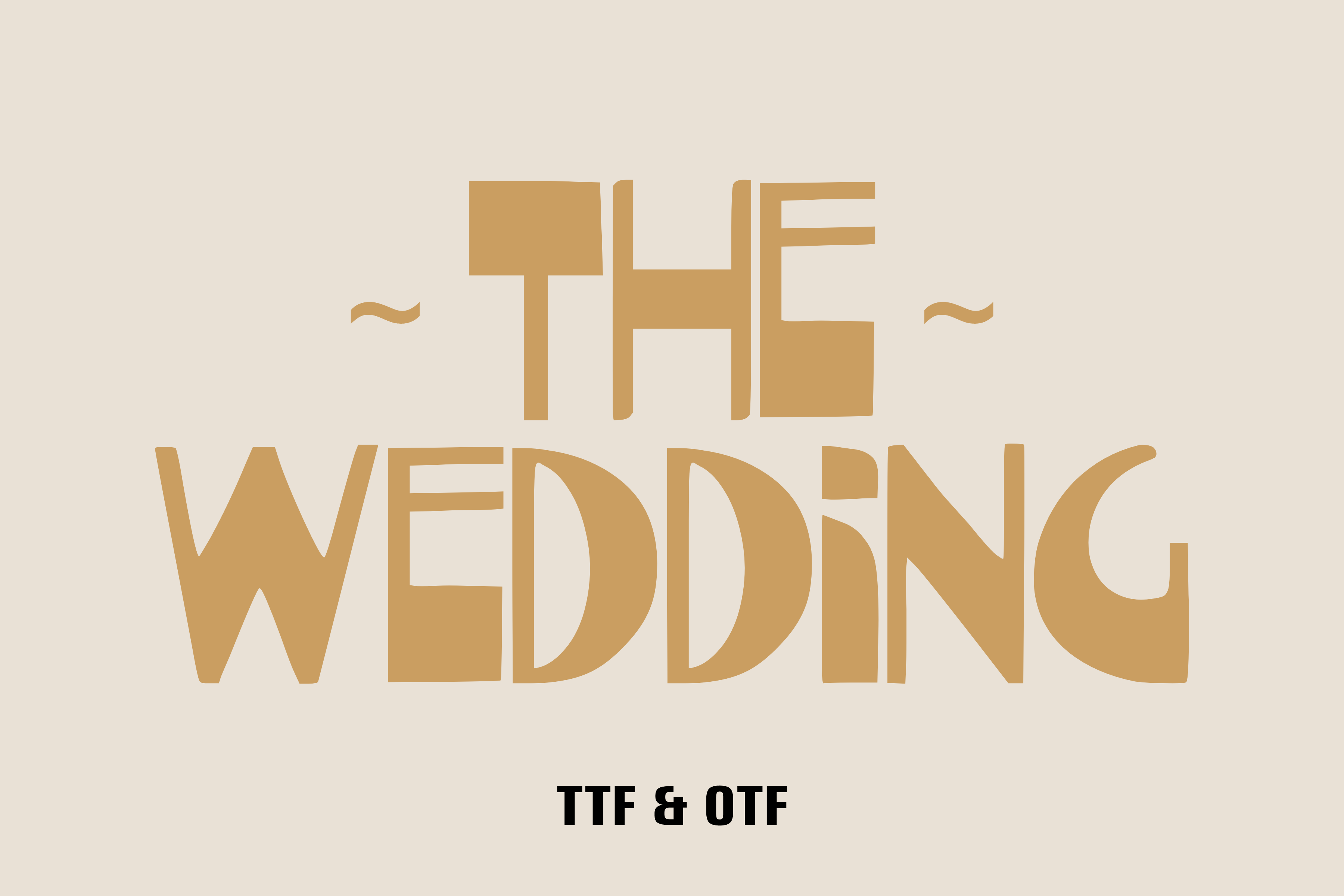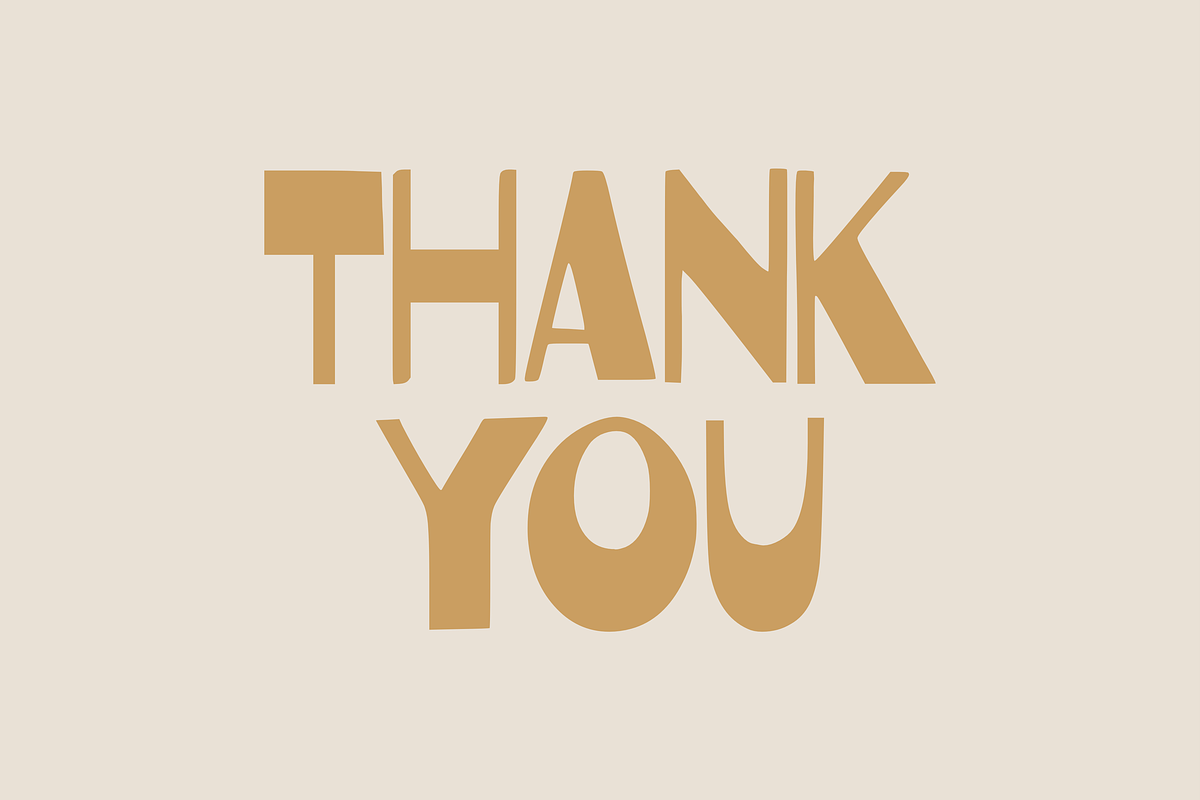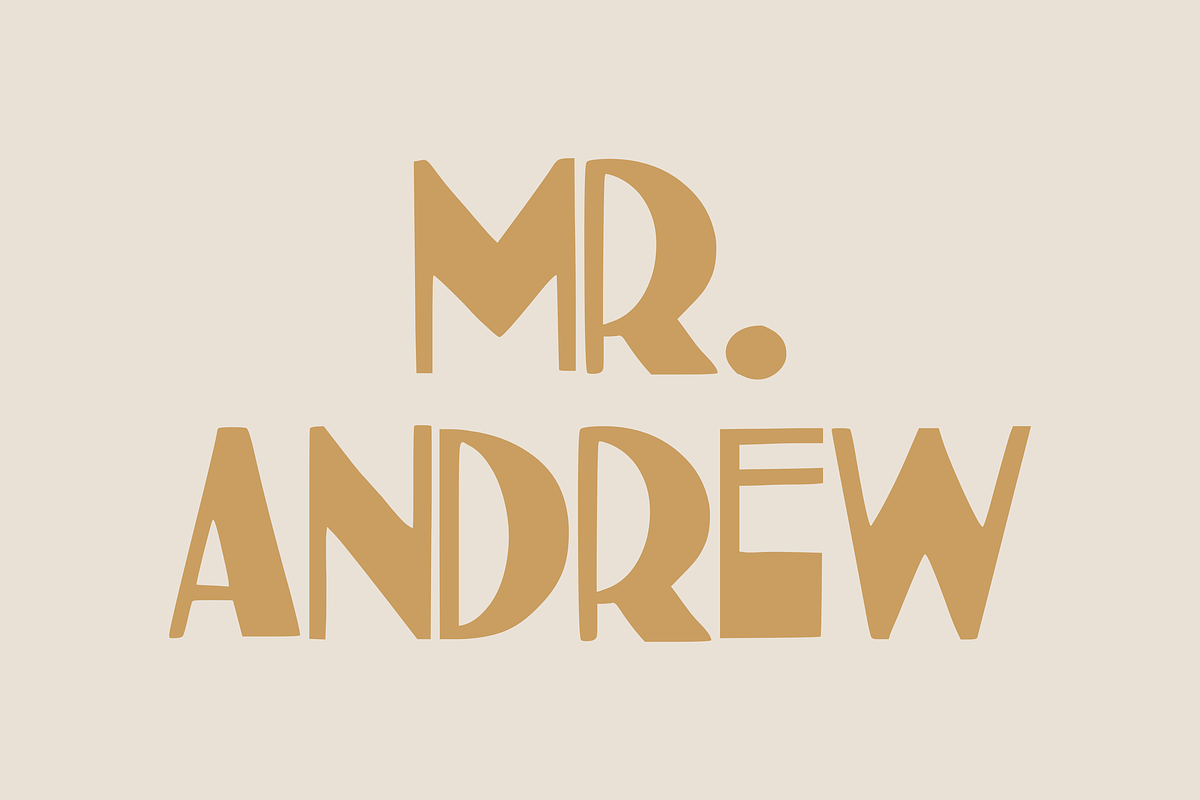
The Wedding - Elegant Font Types
The Wedding font is a charming and playful typeface with a unique handcrafted look. Its bold, irregular letterforms add a creative and personal touch, making it perfect for wedding invitations, bohemian-inspired designs, greeting cards, and branding projects. This font exudes warmth and artistic flair, making every project feel special.